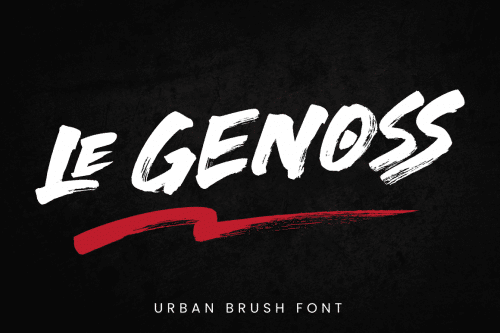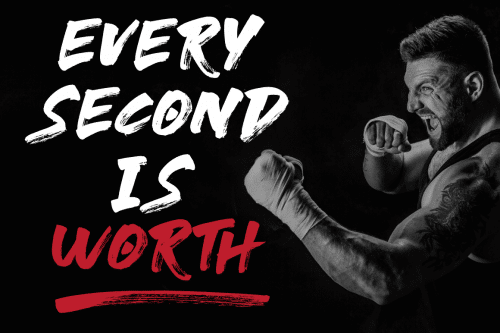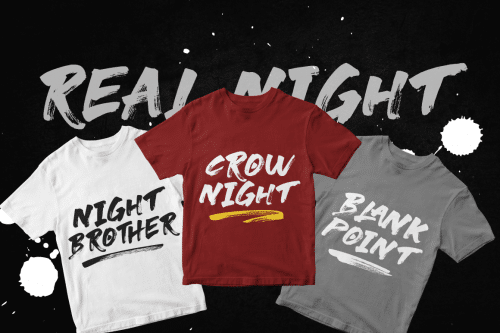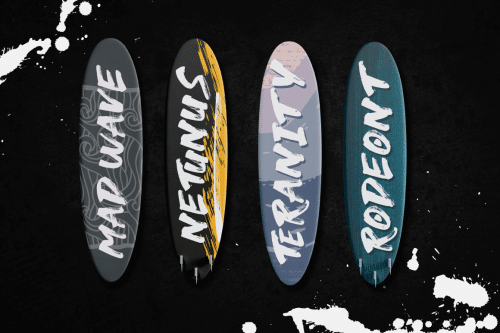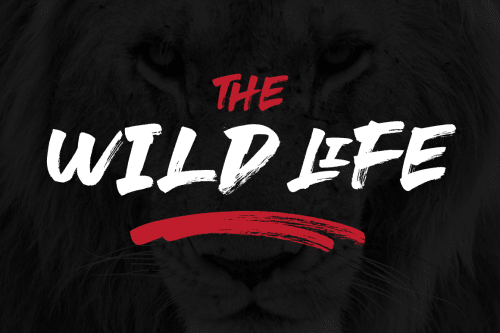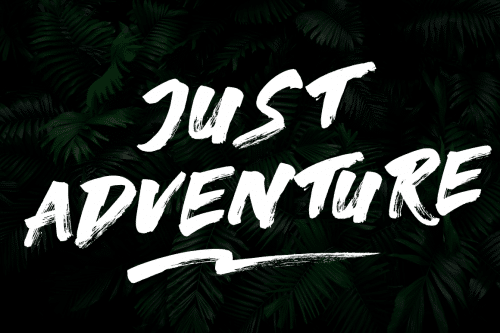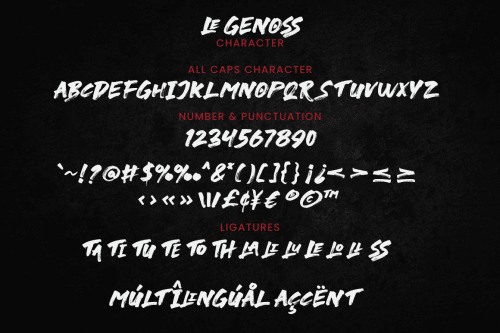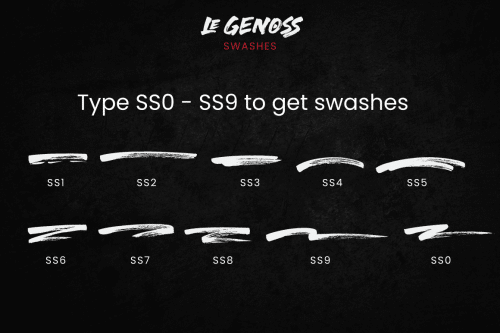
Le Genoss Brush Font is an urban styled handwritten font, designed with the help of a brush pen. It’s urban brush font inspired by real brush calligraphy with real texture.
Le Genoss perfectly macth for design with valentine theme, any product like book cover, t-shirt, branding, promotion, social media post, quotes, wedding, photography and more.